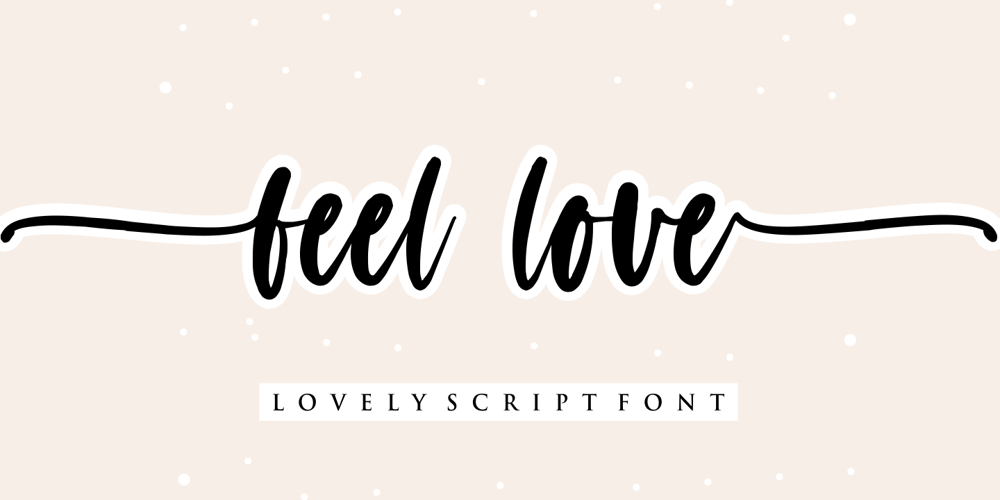
Feel Love
Feel Love font
Feel Love Font Family was designed by Muhammad Fikry and published by Fikryal. Feel Love contains 1 styles and family package options. Feel Love is a natural script font perfect for crafting, branding, invitation, stationery, wedding designs, social media posts, advertisements, product packaging, product designs, label, photography, watermark, special events, or anything.Feel Love comes with full set of uppercase and lowercase letters, swash alternates, ligatures,multilingual symbols, numerals and punctuation.